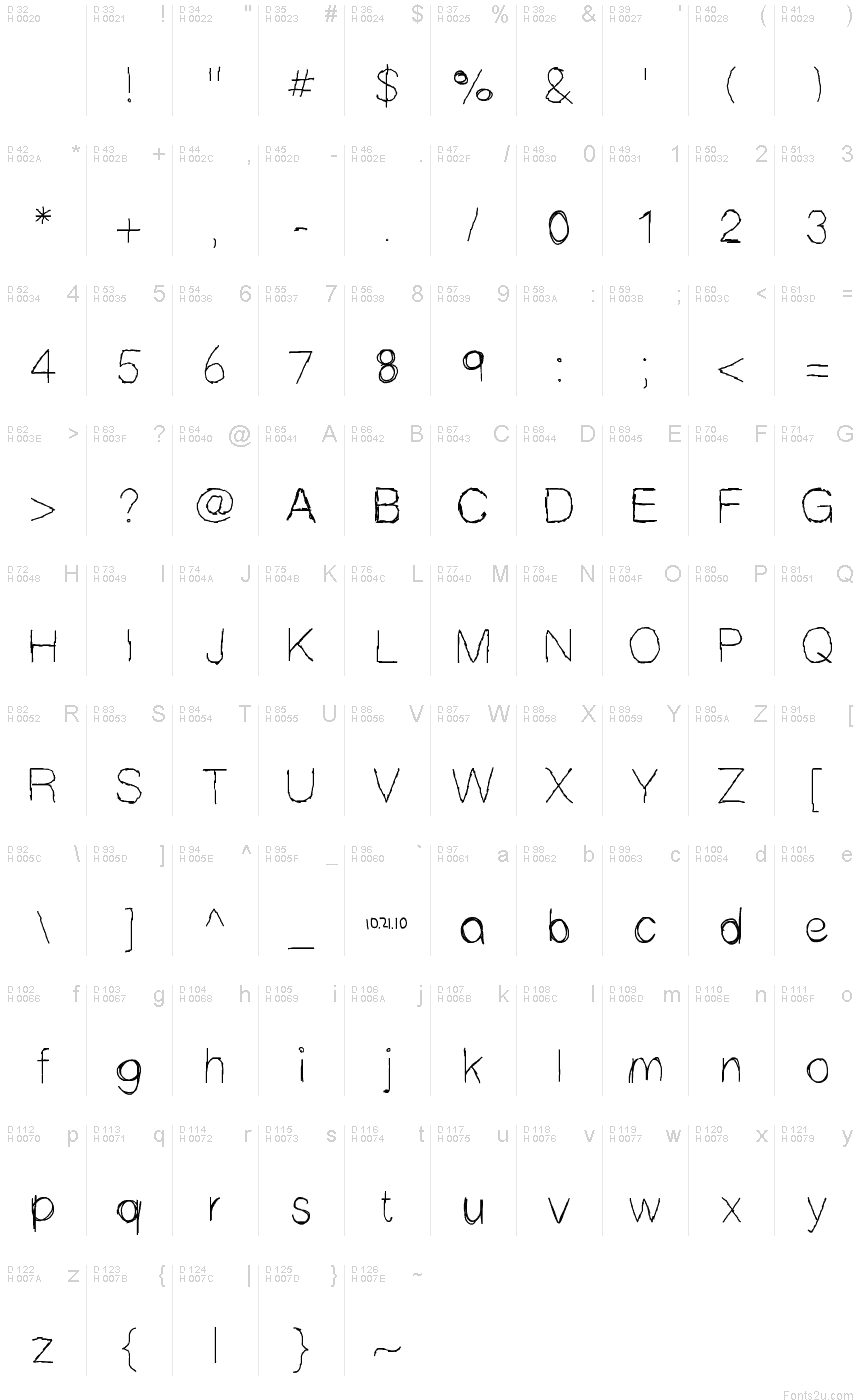
MBScribbles by Marcus Burnette is a free rough handwritten font with the look of hurried marker lettering. Its thin strokes wobble, overlap, and double back, leaving small gaps and dark knots at turns. The uneven forms feel deliberately uncorrected.
Designers working in youth culture, indie music, or DIY scenes will find it suited to posters and album artwork. It can also lend packaging or social graphics the blunt immediacy of a hand-scrawled note. Those retraced lines make the lettering useful when type should echo sketchbook marks or nervous doodles.